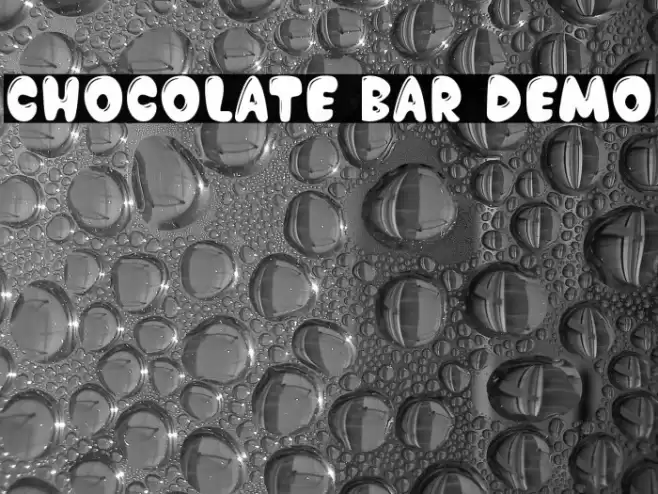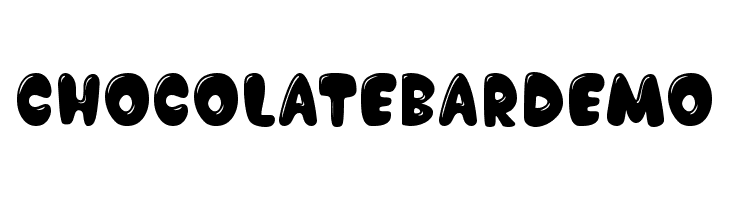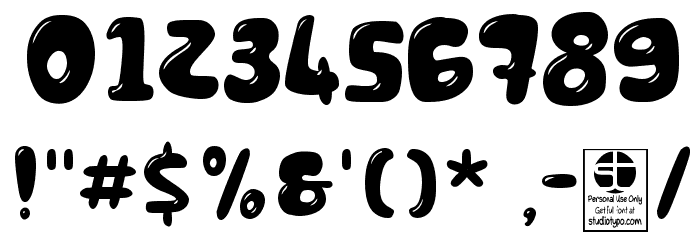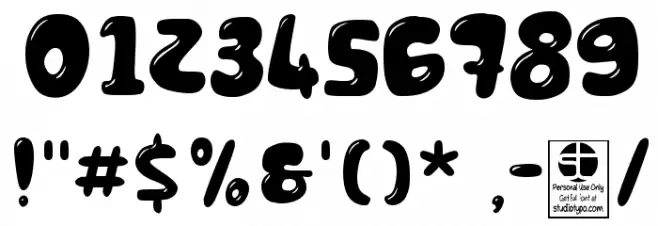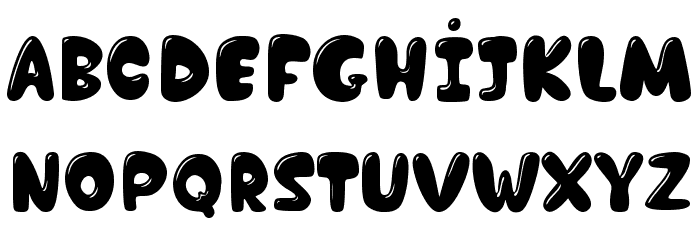
Chocolate Bar Demo Font
Chocolate Bar Demo Description
This playful and bold font features rounded, bubbly characters that give off a fun and whimsical vibe. The letters are thick and have a slightly uneven baseline, adding to their charm and casual feel. The font is highly legible, with each character distinct and well-defined, making it suitable for a variety of creative projects. The numbers and special characters maintain the same playful style, ensuring consistency across all text elements. This font is perfect for projects that require a touch of humor and lightheartedness.
A playful, bold font with rounded, bubbly characters from Uncategorized fonts.
- Proposed Projects: Ideal for children's books, party invitations, playful branding, and fun social media graphics.
- Overall Style: Playful